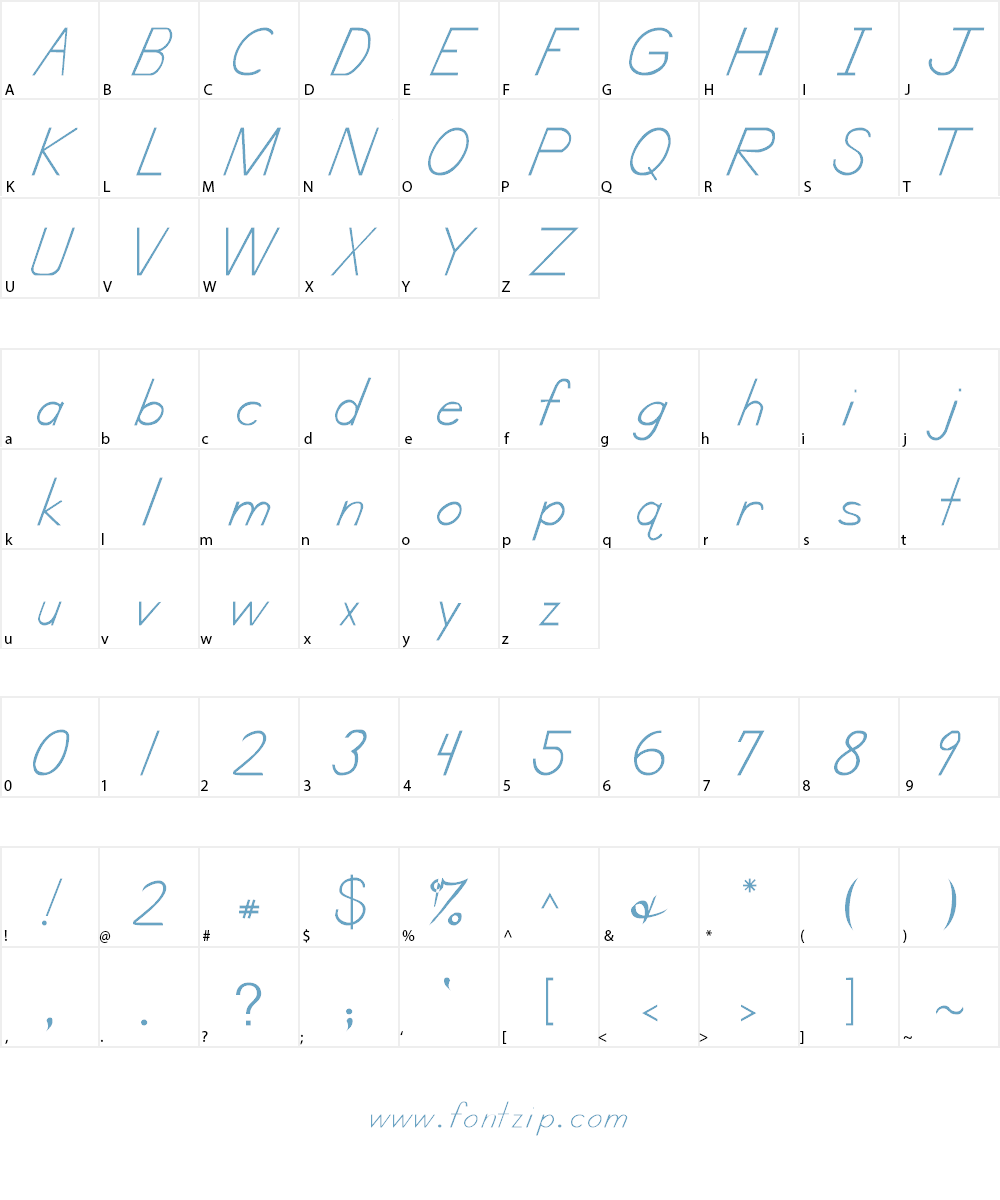
MSDWT Manuscript is a slant print manuscript handwriting font. It
includes the basic upper and lower case alphabet as it's taught in many
schools, and a few special characters. I use this font for
"handwriting" and spelling papers for my students. It comes from an
old handwriting packet I've had for years from a school corporation
I used to work for in Indianapolis. I scanned it into the computer and
used Fontographer 4.1 to autotrace and fine-tune it. This 1.0.3pc
release reflects some minor changes in letter shape and spacing.
As I have time, I hope to continue to improve the font.